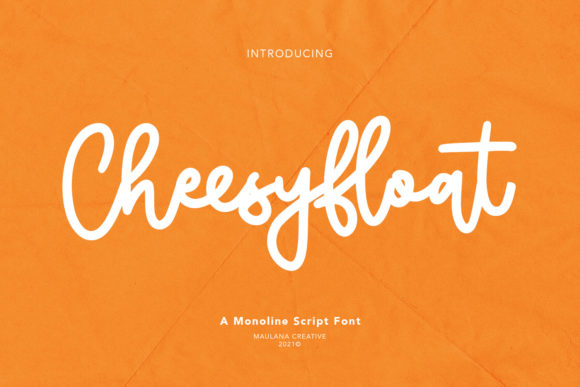
Introducing Cheesyfloat Script Font: Elevate Your Creations with a Whimsical Touch
In the world of typography, fonts play a crucial role in conveying the tone and personality of a design. Among the numerous font styles available, script fonts have gained immense popularity for their elegance and versatility. One such font that has caught the attention of designers and creatives is the Cheesyfloat Script Font. This article will delve into the features, benefits, and uses of Cheesyfloat Script, a whimsical script font that can add a relaxed yet chic touch to your designs.
What is Cheesyfloat Script Font?
Cheesyfloat Script is a unique script font that boasts a relaxed theme with a chic style. Its distinctive appearance makes it an excellent addition to any font library, allowing designers to experiment with various creative projects. Whether you’re working on a branding campaign, a website, or marketing materials, Cheesyfloat Script Font has the potential to elevate your designs and make them stand out.
Key Benefits of Cheesyfloat Script Font
- Versatility: Cheesyfloat Script Font can be used across various design projects, from elegant branding to creative marketing materials.
- Unique Style: Its relaxed yet chic appearance sets it apart from traditional script fonts, offering a fresh perspective for designers.
- Ease of Use: The font’s clear and legible design ensures that it remains readable even at smaller sizes, making it suitable for a wide range of applications.
- Customization: Cheesyfloat Script Font can be easily customized to fit the tone and personality of your brand or project.
Design Applications of Cheesyfloat Script Font
Cheesyfloat Script Font’s versatility makes it suitable for various design applications. Here are a few examples:
- Branding: Use Cheesyfloat Script Font to create a unique and memorable brand identity that stands out from the competition.
- Web Design: Add a touch of elegance and sophistication to your website with Cheesyfloat Script Font, perfect for headings, titles, and emphasis text.
- Marketing Materials: Elevate your marketing materials, such as brochures, flyers, and posters, with Cheesyfloat Script Font’s distinctive style.
- Packaging: Make your product packaging more appealing and eye-catching with the use of Cheesyfloat Script Font.
Typography Tips for Using Cheesyfloat Script Font
To get the most out of Cheesyfloat Script Font, consider the following typography tips:
- Pair with Sans-Serif Fonts: Combine Cheesyfloat Script Font with sans-serif fonts for a balanced and harmonious look.
- Adjust Font Sizes: Experiment with different font sizes to create visual hierarchy and emphasize important information.
- Play with Colors: Take advantage of Cheesyfloat Script Font’s versatility by using different colors to match your brand’s palette or design theme.
- Use Ligatures: Make use of ligatures to add a touch of elegance and sophistication to your text.
How Cheesyfloat Script Font Compares to Other Script Fonts
While there are many script fonts available, Cheesyfloat Script Font stands out due to its unique blend of relaxation and chic style. Here’s a comparison with other popular script fonts:
- Pacifico: Cheesyfloat Script Font has a more relaxed and casual feel compared to Pacifico’s elegant and refined style.
- Great Vibes: Cheesyfloat Script Font offers a more distinctive and quirky appearance compared to Great Vibes’ classic and sophisticated style.
- Alex Brush: Cheesyfloat Script Font has a more modern and edgy feel compared to Alex Brush’s traditional and whimsical style.
| Font Name | Cheesyfloat Script Font |
In conclusion, Cheesyfloat Script Font is an exceptional addition to any designer’s font library. Its unique blend of relaxation and chic style makes it suitable for a wide range of design applications. With its versatility, ease of use, and customization options, Cheesyfloat Script Font has the potential to elevate your designs and make them stand out. Whether you’re working on a branding campaign, website, or marketing materials, Cheesyfloat Script Font is an excellent choice for adding a whimsical touch to your creations.